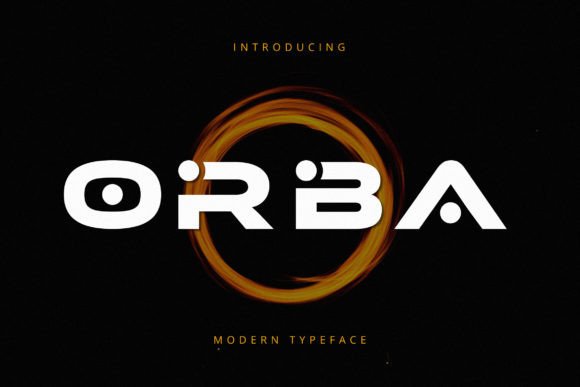
Orba: A Display Font That Earns Its Space
First glance at Orba feels like stepping into a sunlit studio—clean, intentional, and quietly confident. It’s not shouting. It’s leaning in with a knowing smile. The letterforms balance geometric precision with gentle organic warmth: rounded terminals that don’t soften into whimsy, sturdy x-heights that anchor without heaviness, and subtle contrast that nods to calligraphic roots without tipping into script territory. Orba isn’t “friendly” by default—it’s thoughtful. That distinction matters when you’re building brand identity or designing for real people who scroll fast and decide faster.
Where Orba Actually Shines (and Where It Doesn’t Pretend To)
This is a display font—not a workhorse. And it knows it. Orba excels where impact meets intention: logo design for lifestyle brands, boutique packaging, editorial headlines in print and digital, and social media graphics that need to stop thumbs mid-scroll. I’ve used it for a ceramic studio’s product labels—its soft geometry echoed the hand-thrown curves of their mugs. It held up beautifully on matte-finish kraft paper, and translated just as well to Instagram story headers and Shopify banners.
It works in web design—but only where hierarchy allows it room to breathe. As a website header? Yes, especially paired with a neutral sans serif for body copy. As paragraph text? No. Not even close. Orba isn’t built for long-form readability, and trying to force it there undermines both the typeface and your audience’s trust. Same goes for small-print legal disclaimers or dense product specs. Let it do what it does best: declare, distinguish, and delight—in short bursts.
Real-World Fit Across Mediums
In packaging design, Orba adds quiet premium weight. Think apothecary jars, artisan chocolate boxes, or limited-run zines—where texture, tone, and typographic restraint signal care. On merchandise? It holds up on screen-printed tote bags and embroidered patches when scaled appropriately. Too small, and the rounded counters start to fill in; too large without breathing room, and its subtlety gets lost in boldness.
For invitations and printable design—especially wedding or event suites—Orba brings modern typography with emotional warmth. It avoids the sterility of some geometric sans serifs and the informality of many handwritten fonts. Paired with a delicate serif for names or dates, it creates rhythm without competition.
Social media graphics benefit most when Orba anchors a single focal phrase: a quote overlay on a muted photo, a launch announcement banner, or a Cricut project cut from vinyl. Its clean shapes render crisply at any resolution—and crucially, it remains legible on mobile without relying on heavy stroke weight or exaggerated spacing.
What Happens When You Pair It Right (and Wrong)
Orba is a generous partner—but only if you respect its role. It pairs effortlessly with humanist sans serifs (think Inter or Poppins) for balanced, accessible branding systems. With a warm serif like Lora or Literata, it creates elegant contrast for editorial design or luxury packaging. Against a tight, high-contrast serif? It can feel disconnected—too soft, too grounded. Next to a flowing script font? Only if the script is restrained and purposefully minimal; otherwise, Orba gets visually drowned.
I avoid pairing Orba with other display fonts unless there’s strong conceptual alignment—like a bold, monoline geometric companion for a tech-forward brand. Even then, I limit it to one headline layer. Two display fonts in one composition rarely coexist peacefully, and Orba doesn’t beg for attention—it earns it through clarity, not volume.
Design Decisions That Matter Most
Before committing Orba to a client project or digital product, I run these checks:
- Test it in black and white first. Its charm isn’t in color—it’s in shape and proportion. If it falters without hue, it’ll falter in production.
- Check readability at actual use sizes. At 18px on screen or 8pt on a product label, some glyphs tighten up. The lowercase ‘a’ and ‘e’ hold well—but the ‘g’ needs space. Never assume.
- Try it on real mockups—not just Figma grids. How does it sit on a textured background? Does it compete with photography or recede gracefully? I’ve scrapped beautiful Orba concepts because they vanished on linen-textured email headers.
- Compare uppercase vs. lowercase usage. Orba’s all-caps setting has presence, but its true voice lives in mixed case—especially in logo design where rhythm and personality matter more than uniformity.
- Review spacing—kerning and tracking—by eye, not default values. Its natural rhythm benefits from slight tracking expansion in headlines, but overdoing it kills cohesion.
The Mood It Builds—And Why That’s Strategic
A Final Note for Practitioners
If you’re evaluating Orba for a real project—whether it’s a client’s rebrand, your own digital product, or a craft-based printable design—don’t ask “Does this look nice?” Ask instead: “Does this support the message, honor the medium, and scale with integrity?” Orba answers yes—to all three—when given the right context. It won’t solve weak concept work, but it will elevate strong intent. And in professional design, that’s the highest compliment a typeface can earn.